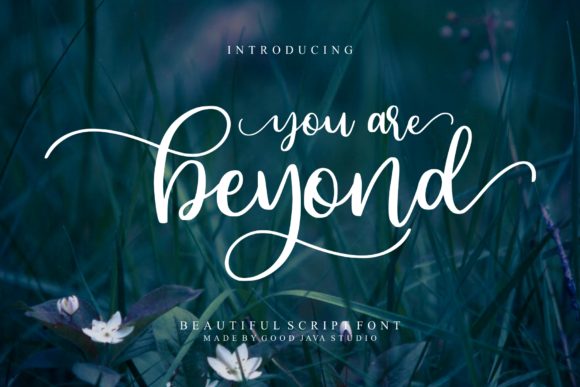
Beyond Font: Elevate Your Design with a Playful Twist
In the realm of typography, fonts play a crucial role in conveying messages, expressing emotions, and creating visual identities. With the vast array of fonts available, designers often seek unique and creative ways to make their work stand out. This is where the Beyond font comes into play – a strikingly original and playful take on modern handwritten fonts that can elevate your designs to new heights.
The Birth of Beyond Font
Beyond font is a meticulously crafted typeface that embodies the essence of playfulness and creativity. Its origins stem from a desire to push the boundaries of traditional typography, offering a fresh perspective on handwritten fonts. The creators of Beyond font aimed to develop a typeface that not only captures the spirit of modern design but also injects a sense of fun and personality into written communication.
Key Features of Beyond Font
Beyond font boasts a range of features that set it apart from other typefaces:
- Unique Character Set: Beyond font offers a comprehensive character set, including uppercase and lowercase letters, numbers, and punctuation marks. Each character is carefully designed to ensure a cohesive and harmonious visual experience.
- Playful Strokes: The font’s strokes are designed to mimic the natural flow of handwriting, giving it a lively and energetic feel.
- Modern Aesthetic: Beyond font seamlessly blends traditional and modern elements, resulting in a typeface that feels both contemporary and timeless.
- Versatility: The font’s versatility makes it suitable for a wide range of applications, from digital media to print materials.
What Makes Beyond Font So Amazing?
Beyond font’s amazing script is a result of its thoughtful design and attention to detail. Here are a few reasons why it stands out:
- Emotional Connection: The font’s playful and expressive nature helps create an emotional connection with the reader, making it ideal for designs that aim to evoke feelings or convey personality.
- Readability: Despite its creative and artistic approach, Beyond font remains highly readable, ensuring that your message is conveyed clearly and effectively.
- Customization: The font’s flexibility allows for easy customization, enabling designers to adapt it to their specific needs and preferences.
Use Cases for Beyond Font
Beyond font’s versatility makes it suitable for a wide range of applications, including:
- Branding and Identity: Use Beyond font to create a unique and memorable brand identity that reflects your company’s personality and values.
- Digital Media: The font’s modern aesthetic and playful nature make it perfect for digital media, such as social media graphics, blog posts, and website headers.
- Print Materials: Beyond font can add a touch of personality to print materials, including business cards, brochures, and posters.
- Packaging: The font’s creative and eye-catching design makes it an excellent choice for product packaging, helping your product stand out on store shelves.
Tips for Using Beyond Font Effectively
To get the most out of Beyond font, consider the following tips:
- Pair it with Neutrals: Combine Beyond font with neutral fonts to create visual contrast and ensure readability.
- Experiment with Colors: Take advantage of the font’s playful nature by experimenting with different color schemes and combinations.
- Use it Sparingly: While Beyond font is eye-catching, it’s essential to use it judiciously to avoid overwhelming the reader.
Beyond font is a game-changer in the world of typography, offering a fresh and creative take on modern handwritten fonts. Its unique character set, playful strokes, and modern aesthetic make it an excellent choice for designers seeking to elevate their work. With its versatility, readability, and customization options, Beyond font is sure to become a go-to typeface for creative professionals. So, go beyond with this amazing script and discover a world of limitless design possibilities.